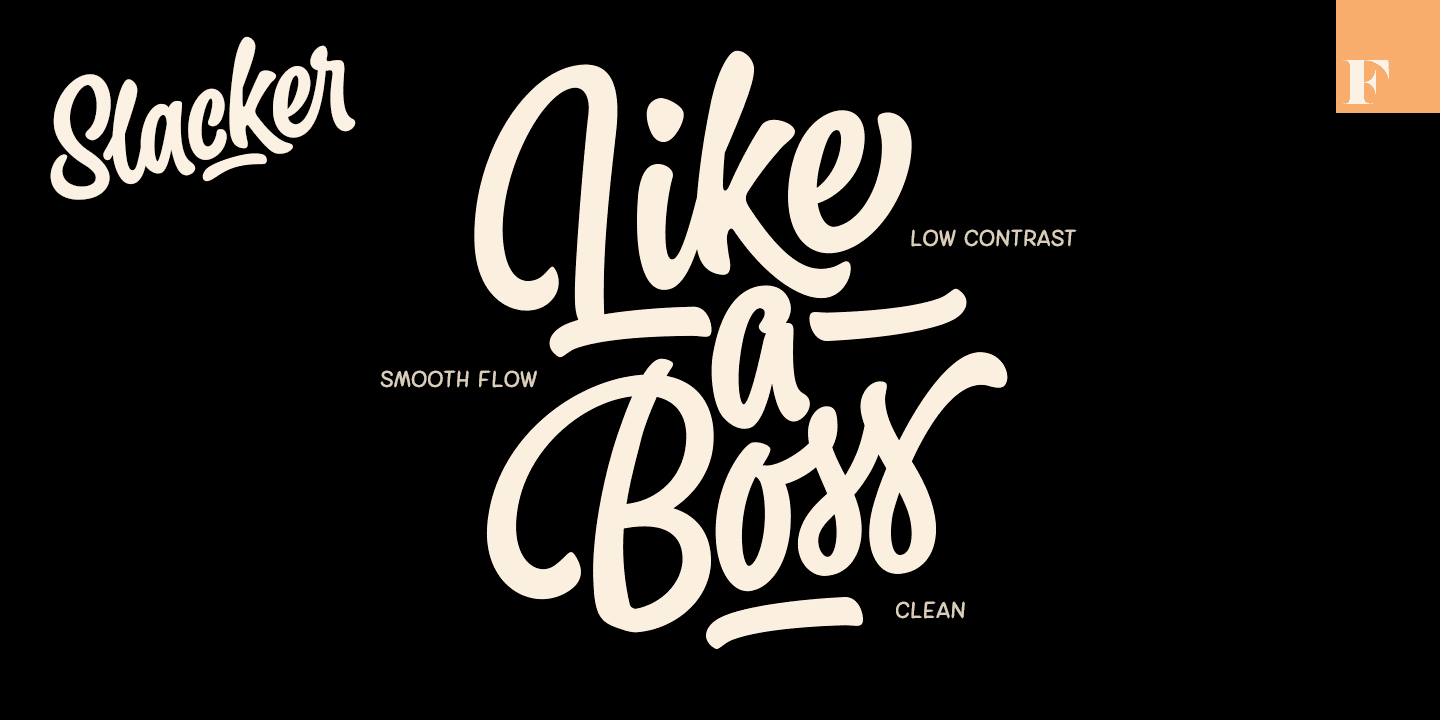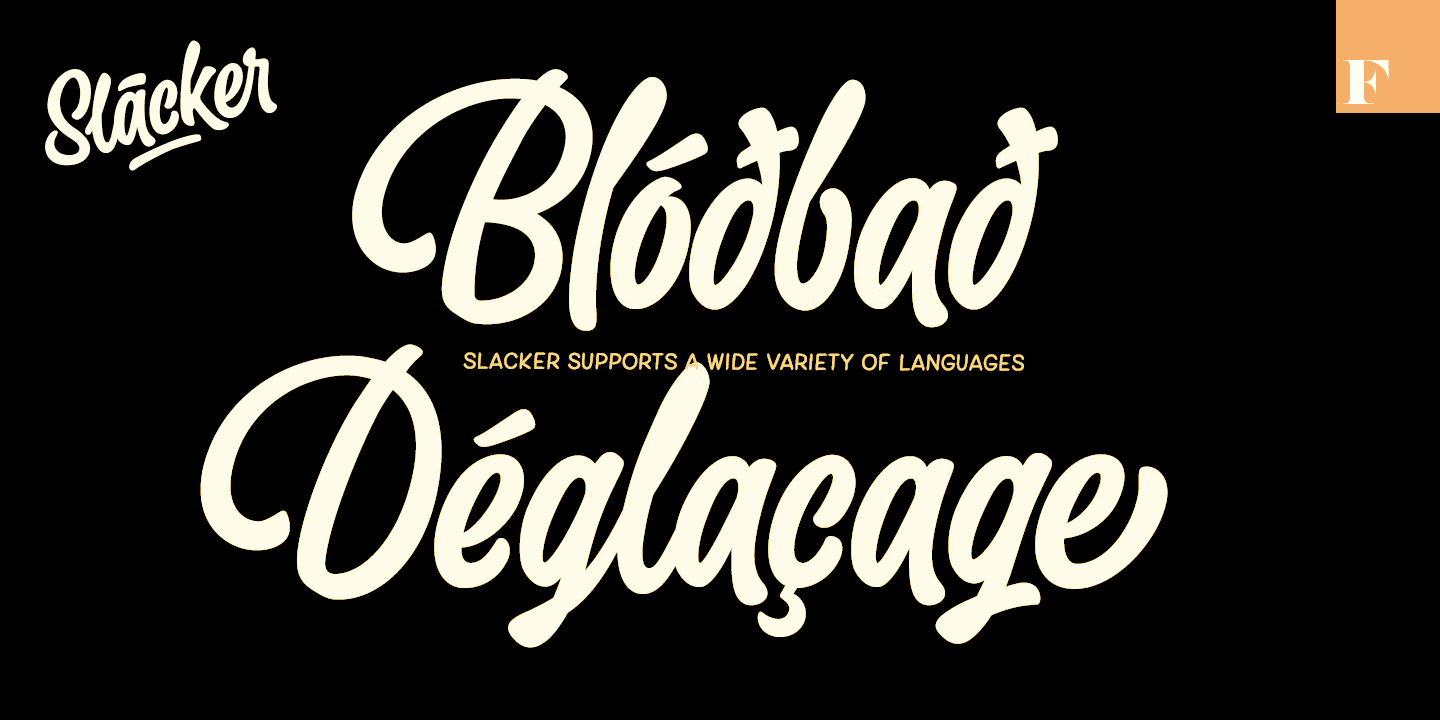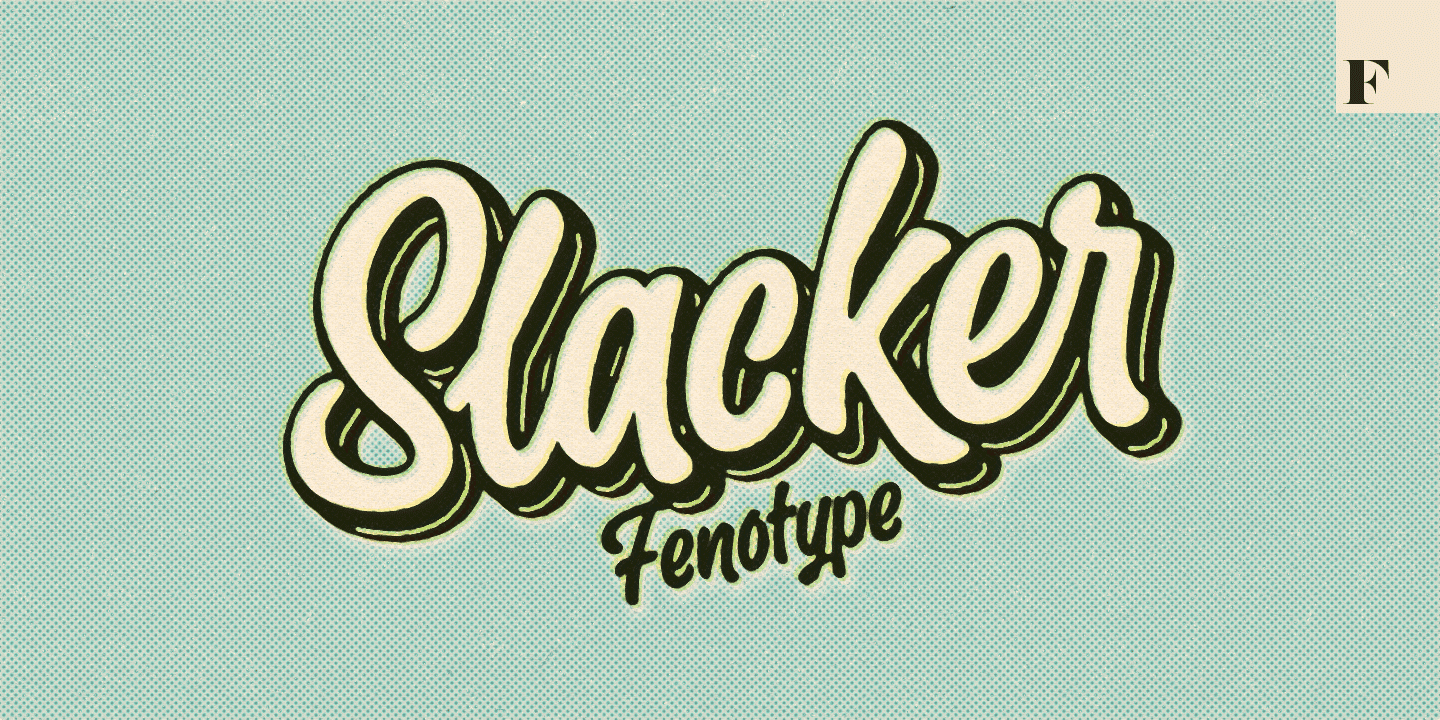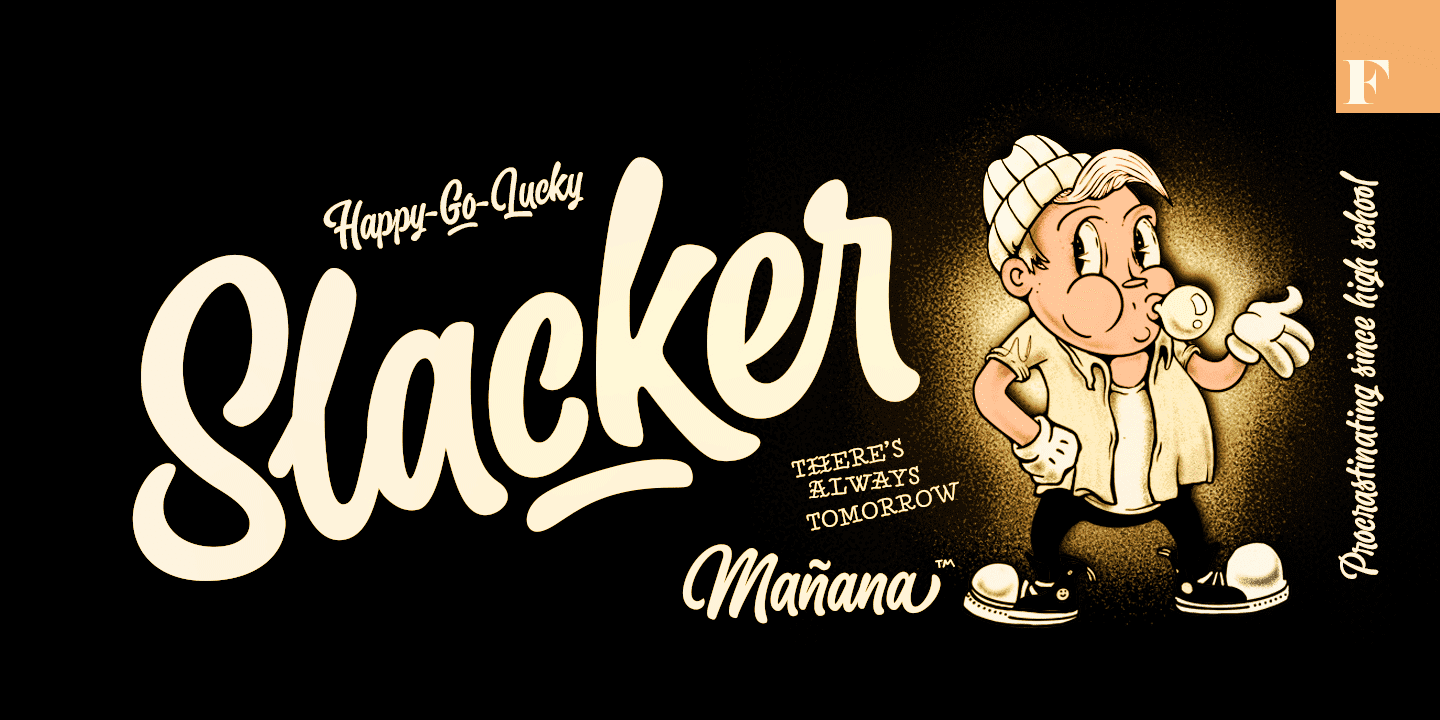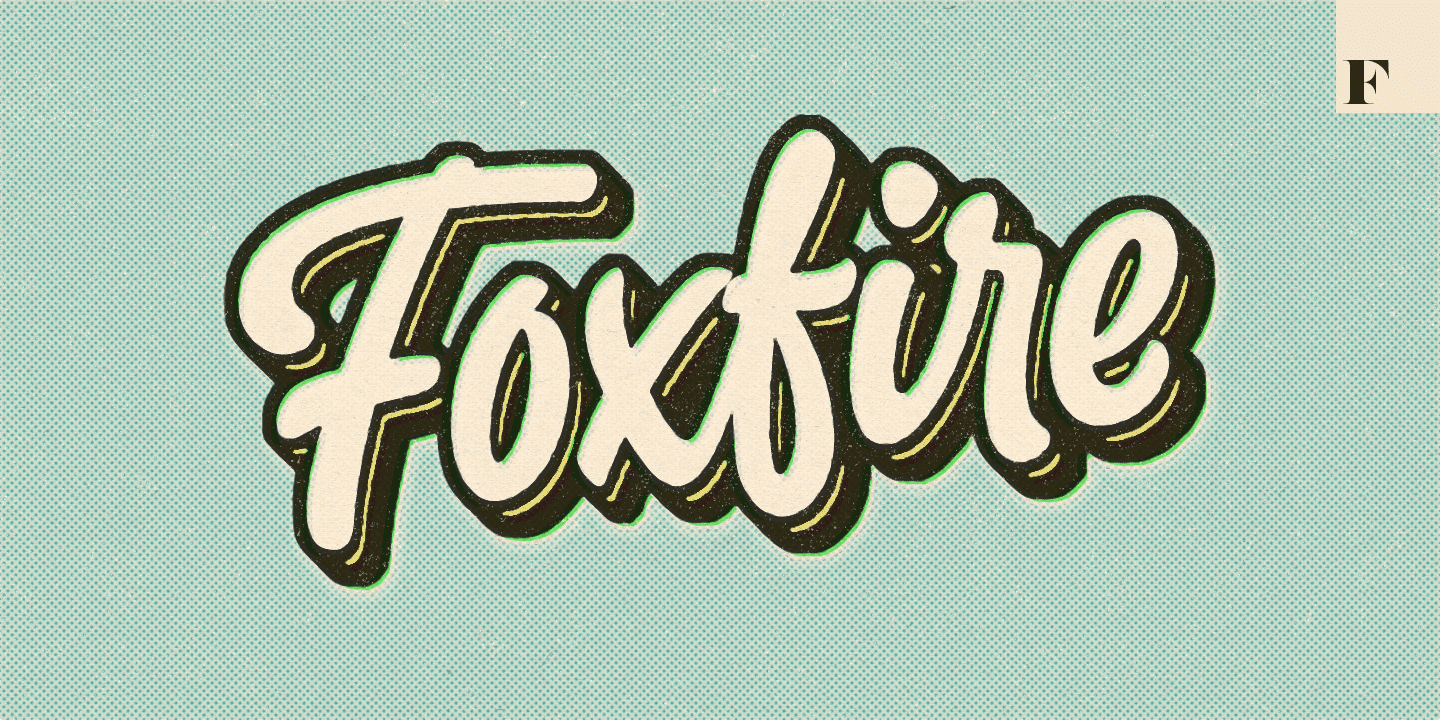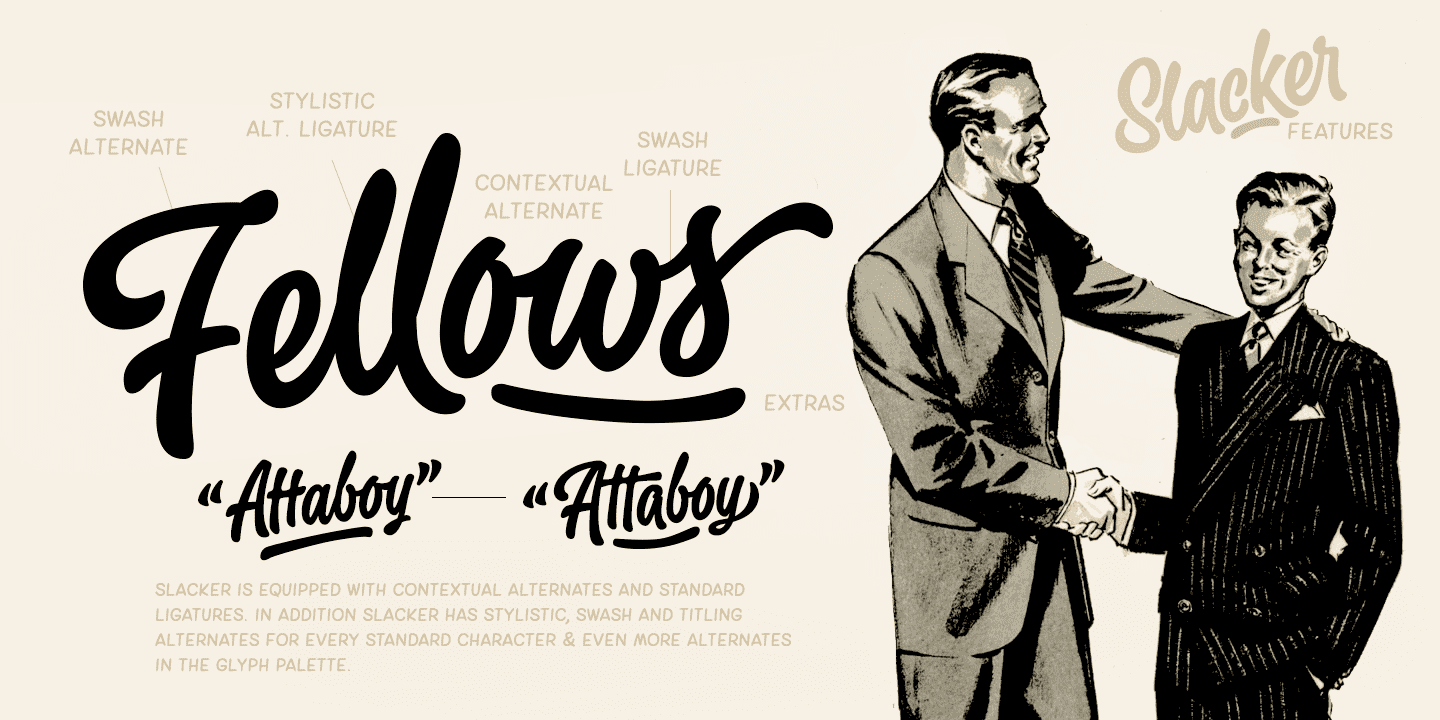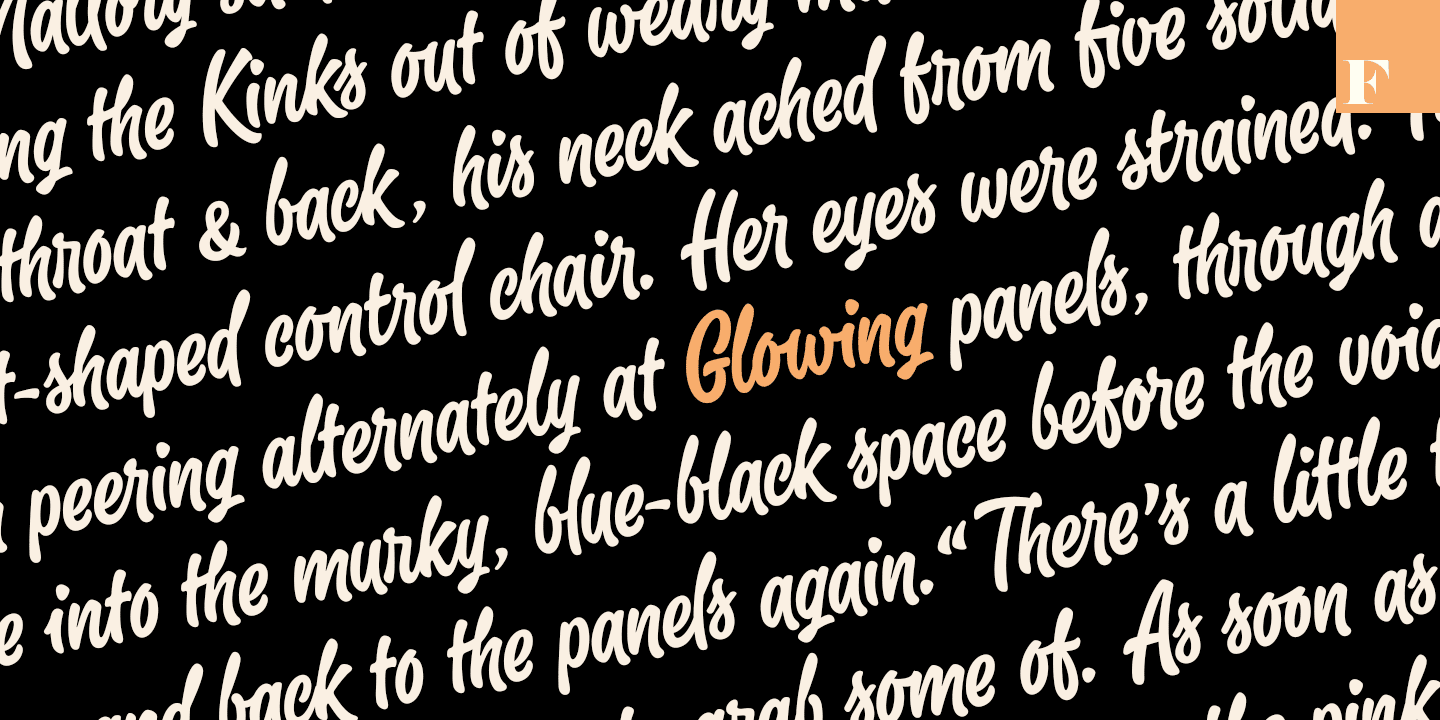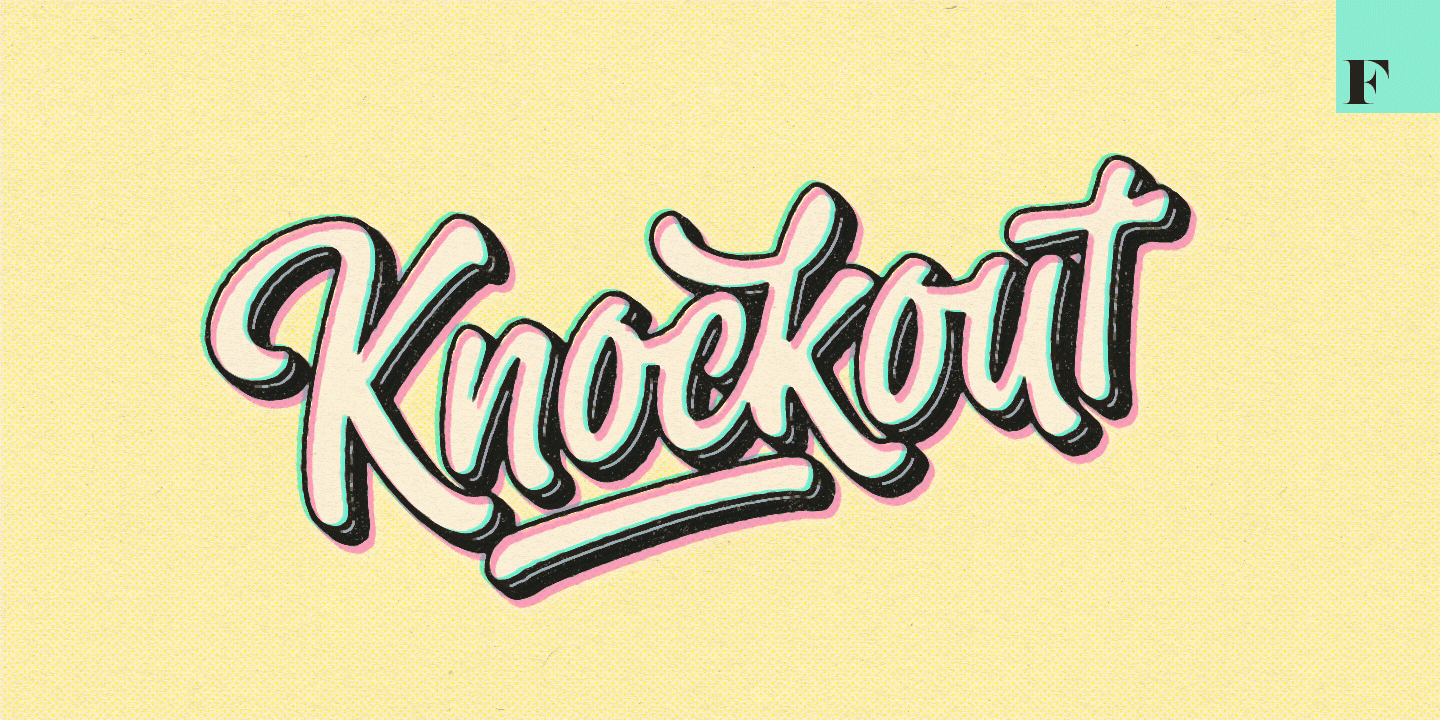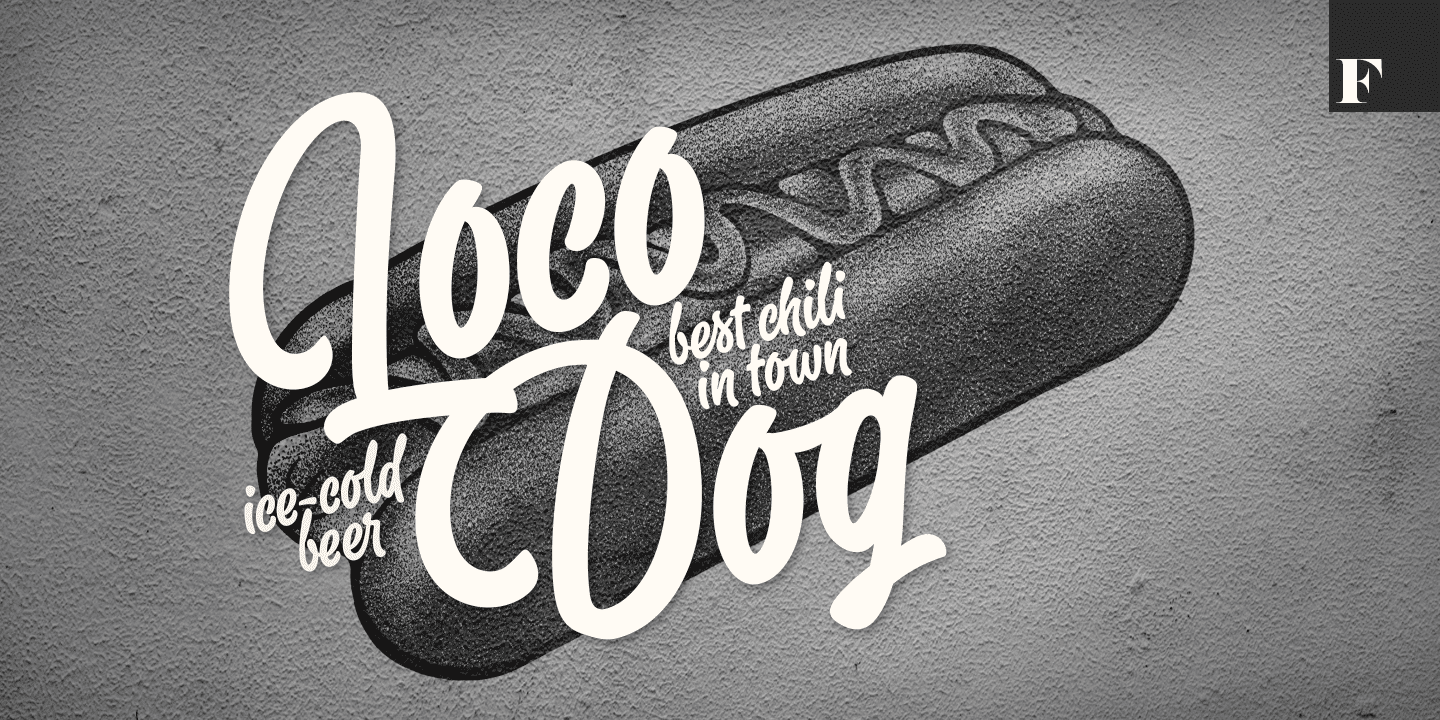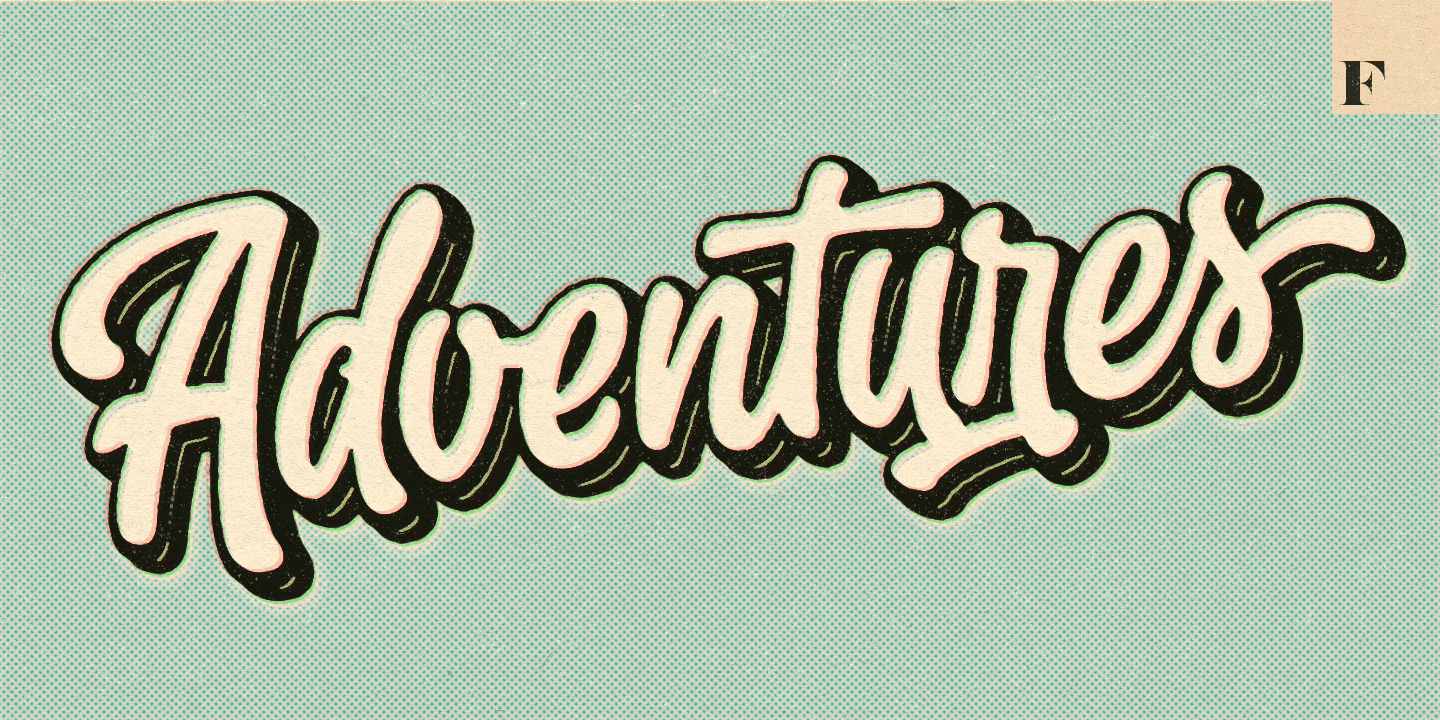
Slacker is a carefree brush script with soft features, low contrast and well balanced character forms. Slacker is excellent for creating easygoing yet catchy headlines, logotypes or even longer texts.
Slacker is equipped with Standard Ligatures and Contextual Alternates - they help to keep the flow lively and balanced and connections smooth so you should normally keep the features on. In addition Slacker has Stylistic, Swash and Titling Alternates for more showy letterforms. If you want to keep letters connecting to one another at maximum try turning on Stylistic Set 01 (SS01). On top of these Slacker has even more alternates in the Character Window making the total glyph count to 660.
Slacker Extras is a set of 50+ brush strokes with the same style as the brush and a set of catchwords.